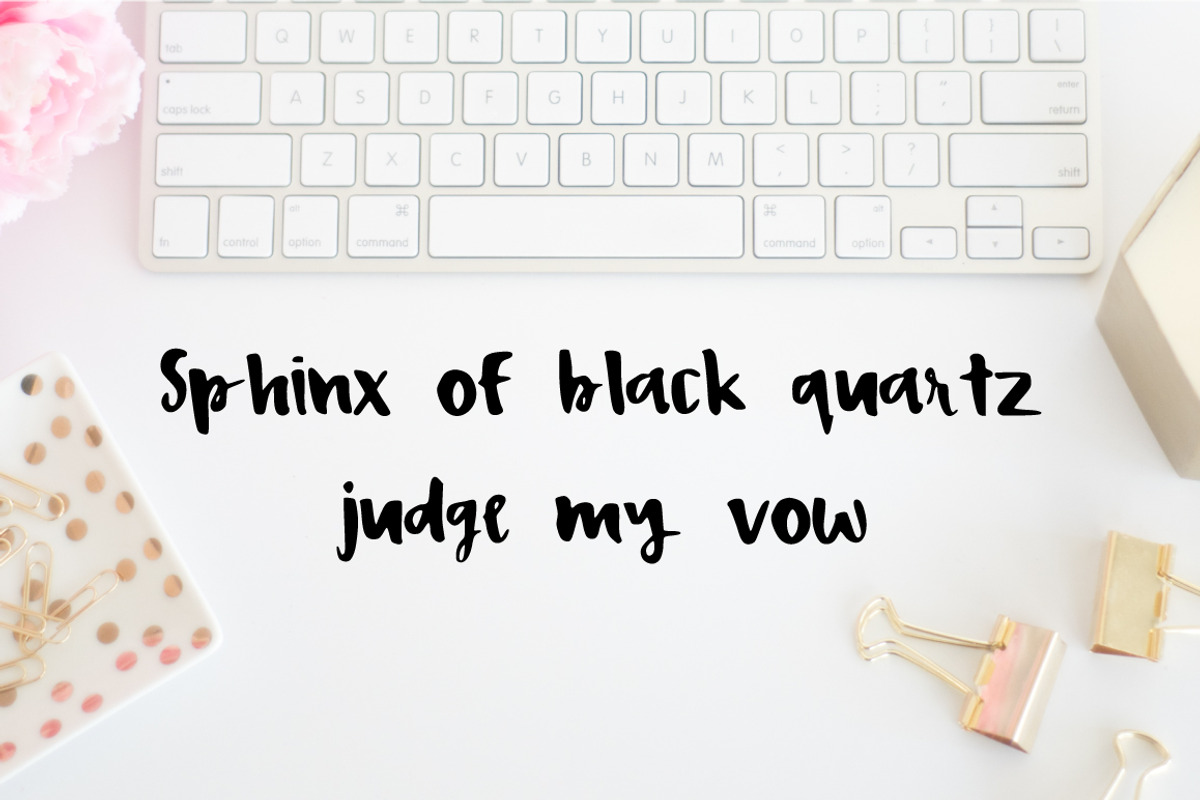
Bisou Script Handwritten Brush Font
Bisou Script Handwritten Brush Font by alt creative shop is a font selected for branding, posters, packaging, typography.
Why Bisou Script Handwritten Brush Font is worth a look
Bisou Script Handwritten Brush Font by alt creative shop fits naturally into Branding, posters, packaging, typography.